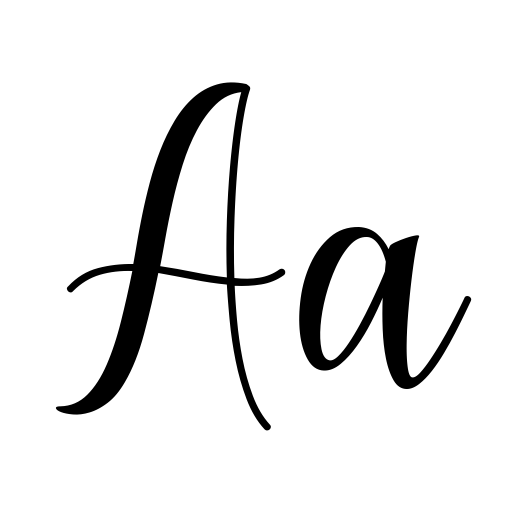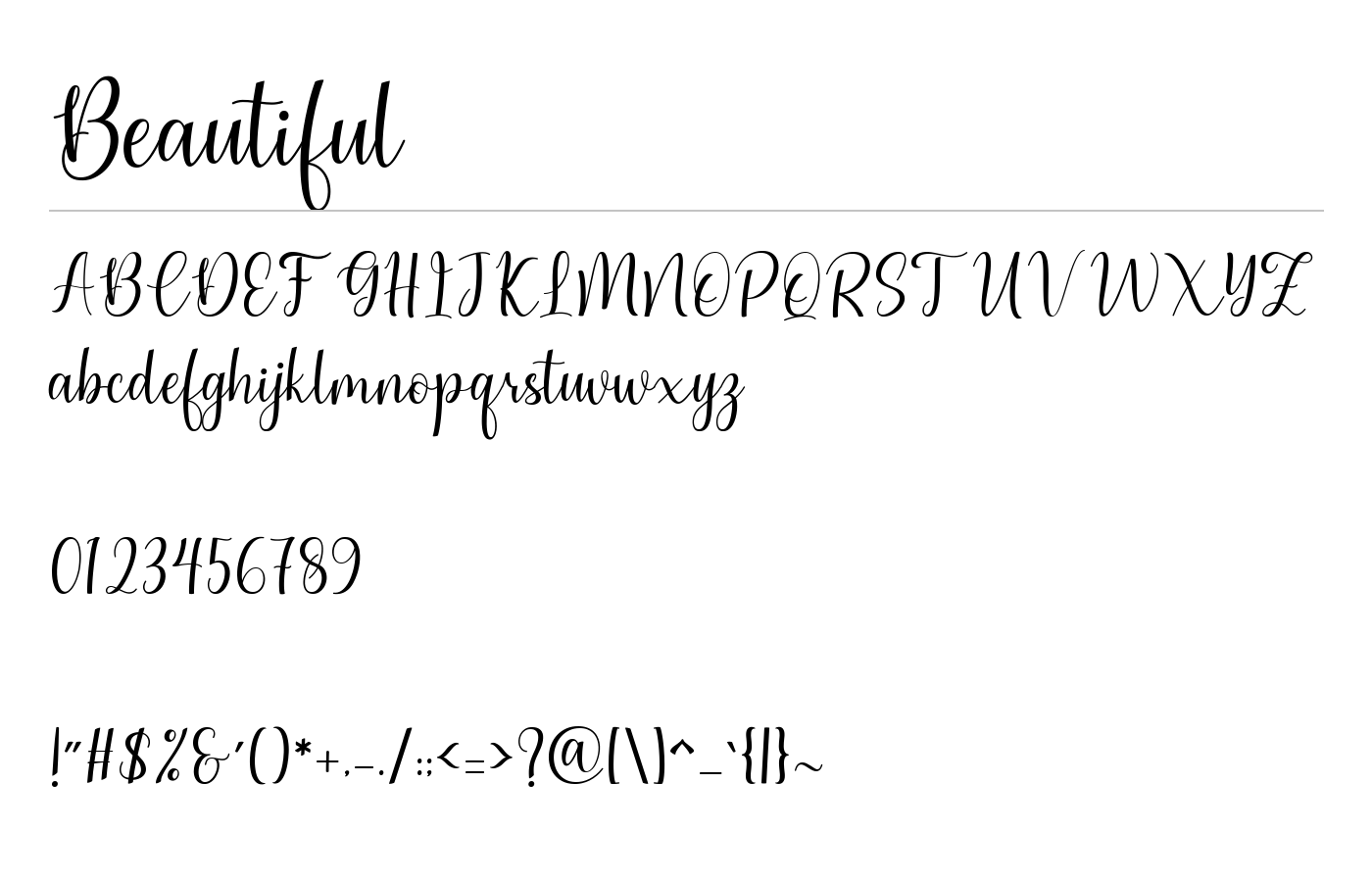
Beautiful Font is an elegant script typeface featuring slender, flowing letterforms with a graceful, handwritten style. Its high contrast strokes and refined curves make it perfect for sophisticated branding, invitations, and any design seeking a touch of romance and charm. This font works beautifully in large sizes for headlines or logos where its delicate details can shine.
Beautiful Font
About Beautiful Font
| Font family | Beautiful Font |
| Designer | Cut Story / Ramadhana |